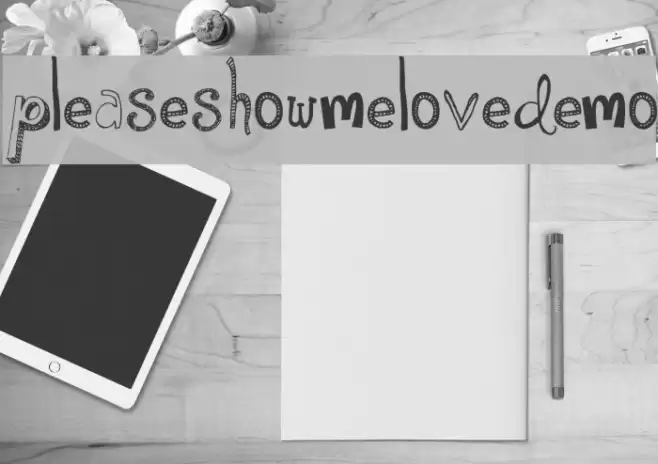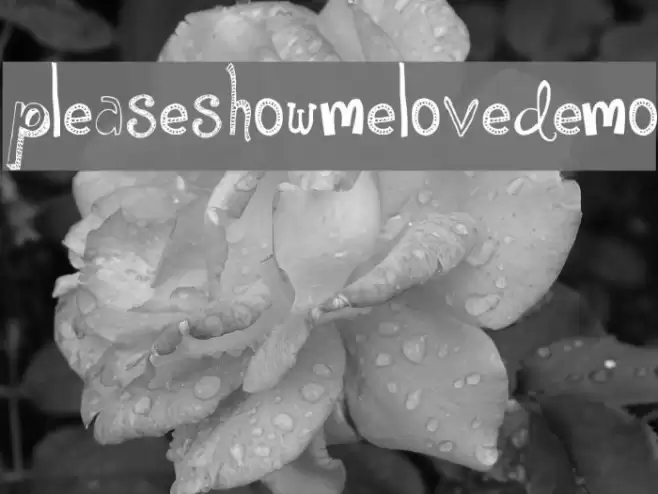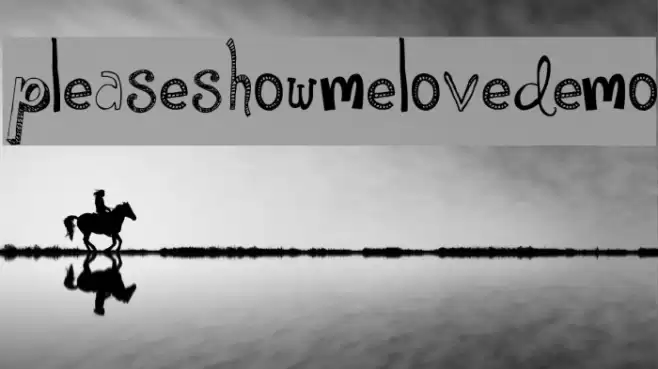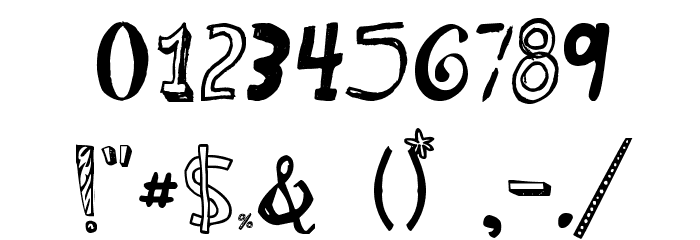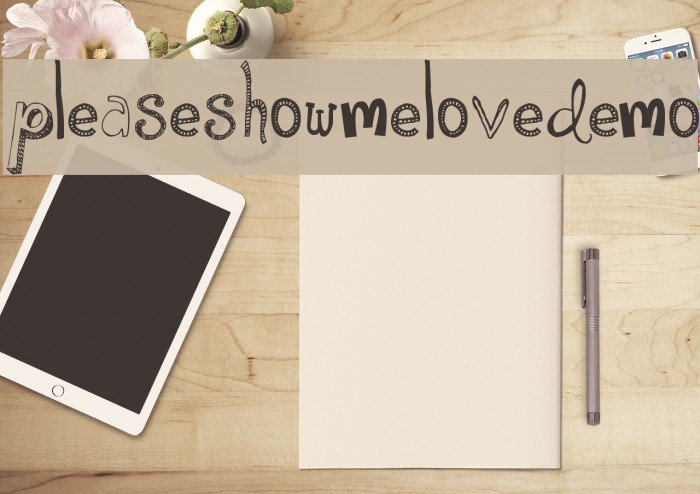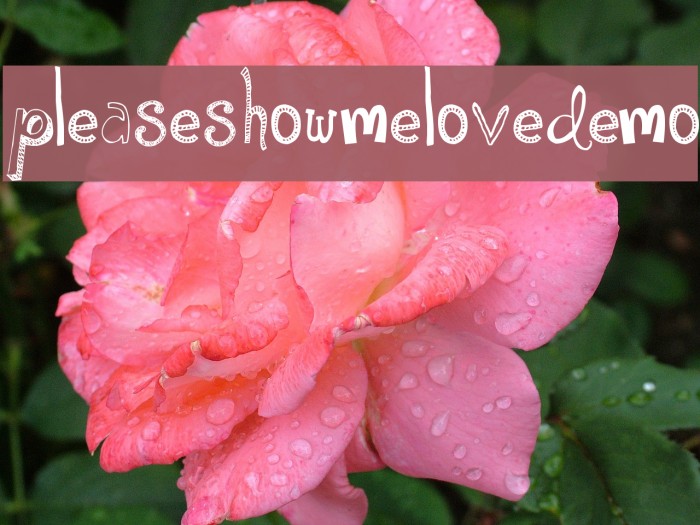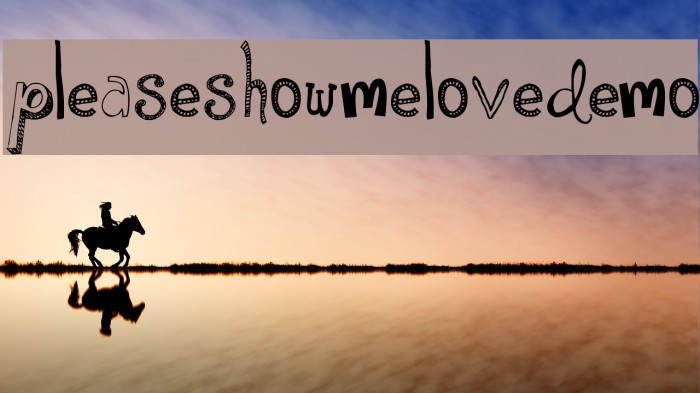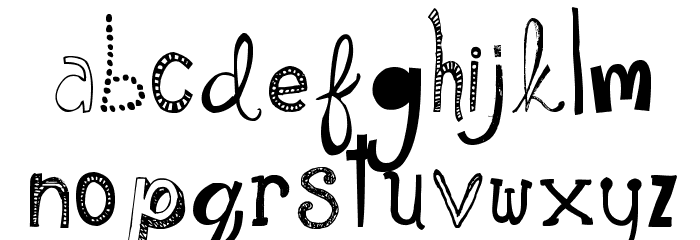
PleaseShowMeLoveDEMO Font
PleaseShowMeLoveDEMO Description
This playful and eclectic font features a mix of whimsical and bold characters, each with its own unique style. The uppercase and lowercase letters vary significantly, with some letters incorporating dots, stripes, and decorative elements. The numbers and special characters continue this theme, offering a diverse range of styles that add to the font's charm. The overall design is highly decorative, making it ideal for creative projects that require a fun and artistic touch.
A playful, eclectic font with varied decorative characters from Uncategorized fonts.
- Proposed Projects: Ideal for children's books, playful branding, creative posters, and artistic invitations.